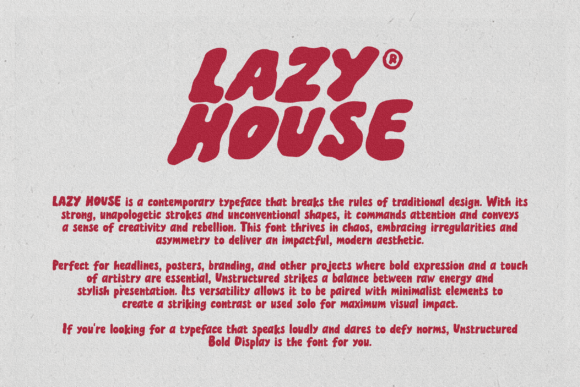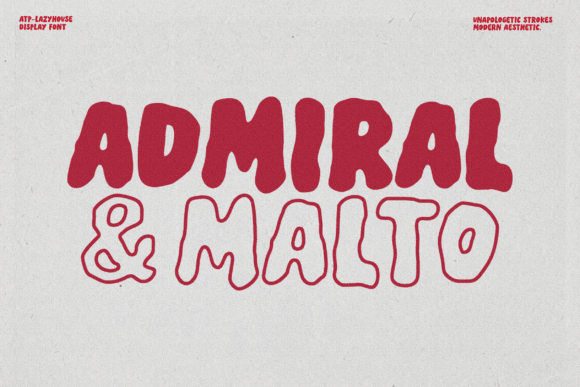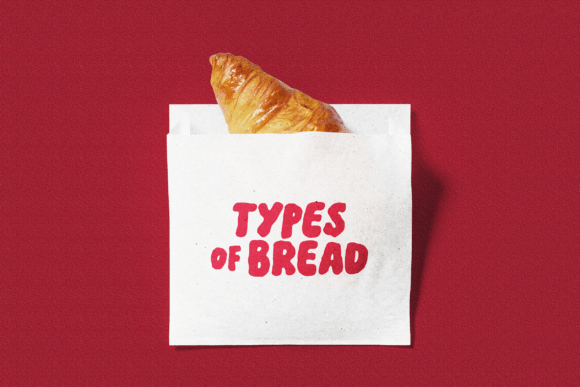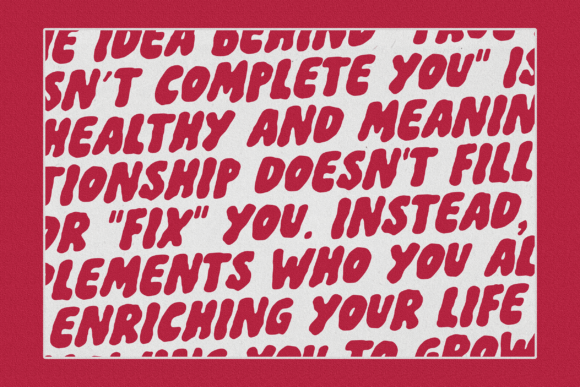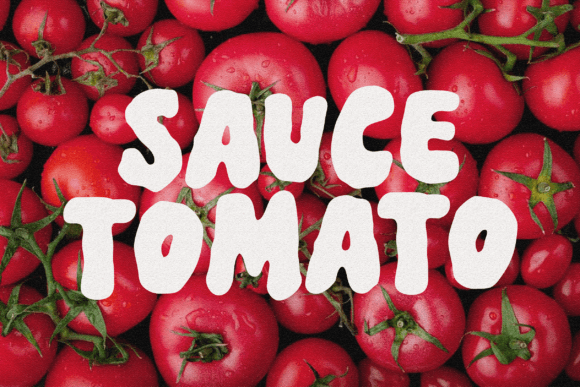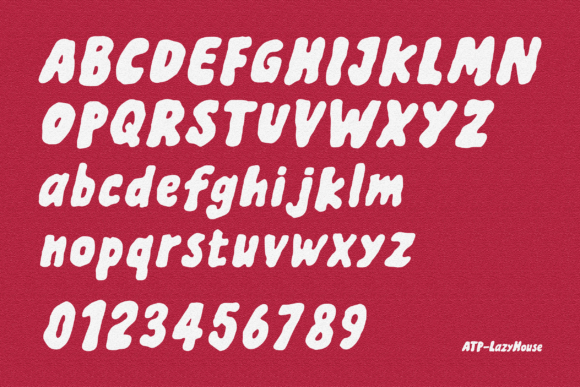
Introduction to Lazy House Font
LAZY HOUSE is an Unstructured Display Font with a Bold Style is a typeface that exudes confidence and creativity.
Combining an unorthodox design with a striking bold weight, this font is built to capture attention and make a strong visual impact Its irregular forms and dynamic edges create a sense of movement and modernity, making it perfect for projects that demand a statementโ€”whether in headlines, posters, branding, or artistic compositions.